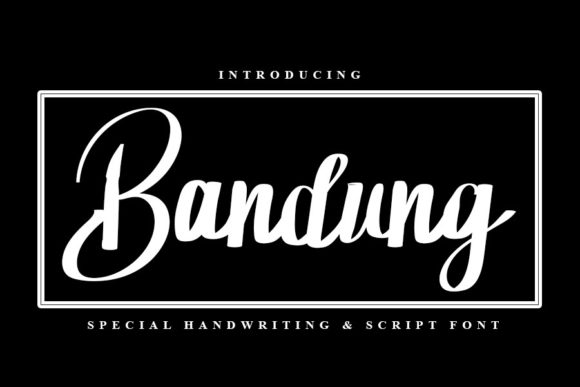
Introducing Bandung Font, a captivating script font family that adds a touch of elegance and personality to your creative projects. Inspired by the beauty of handwritten notes, Bandung embodies a sense of warmth, authenticity, and timeless appeal.
Unleash your artistic vision with Bandung's stunning curves, delicate swashes, and an array of eye-catching glyphs. This remarkable font family is meticulously designed to evoke a sense of charm and sophistication, making it the perfect choice for adding that special touch to your designs.
Whether you're crafting wedding invitations, creating logos, designing social media graphics, or adding a personal touch to your branding materials, Bandung is your perfect companion. Its versatile nature makes it suitable for a wide range of projects, from elegant wedding monograms to playful social media posts.
Step into a world of creative possibilities with Bandung Font. Embrace the beauty of handwritten artistry and watch your designs come alive with a touch of timeless elegance.
* Exquisitely crafted handwritten font family
* Bold and confident strokes for a striking presence
* Intricate swashes and glyphs for added charm
* Perfect for wedding invitations, logos, branding, and more
* Versatile styles to suit a variety of projects
Unlock the power of Bandung Font today and elevate your designs to new heights. Experience the magic of handwritten artistry and make a lasting impression with every project you create.